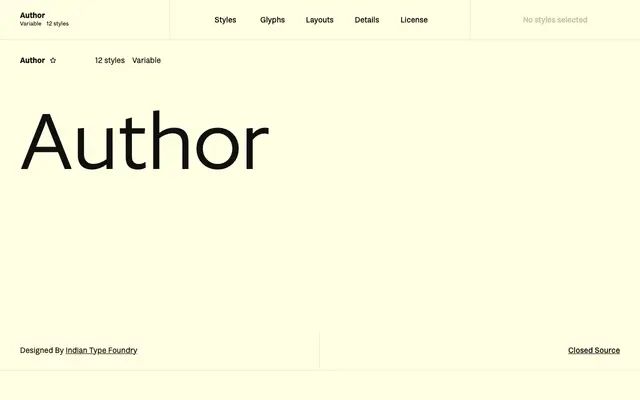
Author
A humanist sans from Indian Type Foundry designed for modern publications, with slightly expanded letterforms and diagonal stroke terminals drawn from broad-pen calligraphy.
Designed by Satya Rajpurohit, Author spans six weights from Extralight to Bold, each with a matching italic, plus variable font files. The uppercase letters are broadly monolinear while the lowercase carries visible stroke contrast, and the stroke terminals cut diagonally in reference to humanist calligraphic forms. Double-storey 'a' and 'g' appear in the uprights, with single-storey alternates available via OpenType, while the italics use single-storey forms throughout.
Classified on the page as a humanist sans serif, with visible stroke contrast in lowercase letters and diagonal stroke terminals referencing broad-pen calligraphy, placing it firmly in the humanist sans tradition.